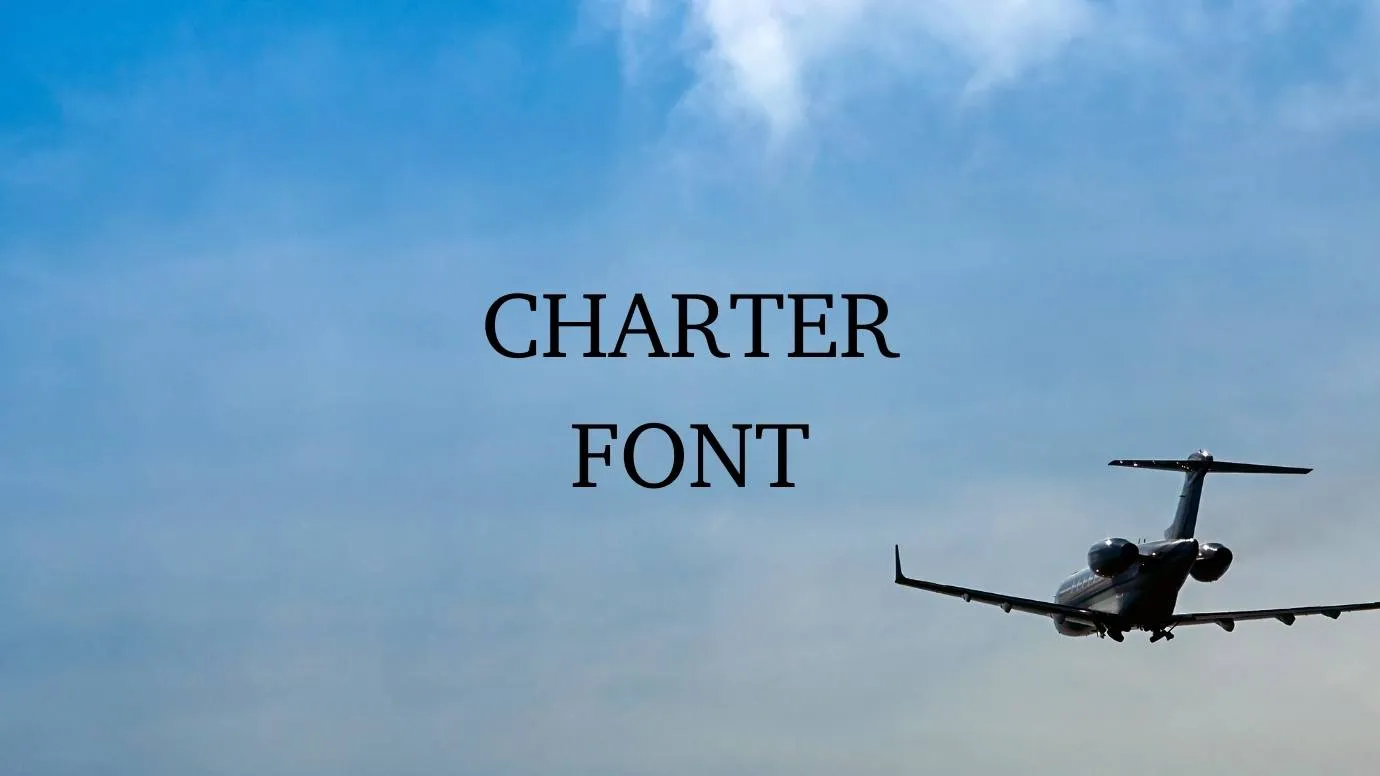
Charter is a most classy and awesome typeface that was designed by Matthew Carter. Firstly, it was released in 1987. It is a Serif typeface. It is most perfect for printing on high and low-resolution printers.
This typeface is designed for headlines and text writing. Another version of this stunning typeface was released in 2004 with new characters including ranging figures, additional symbols, and small capitals.  This version has much more expanded features.
DesignerMatthew Carter
Serif